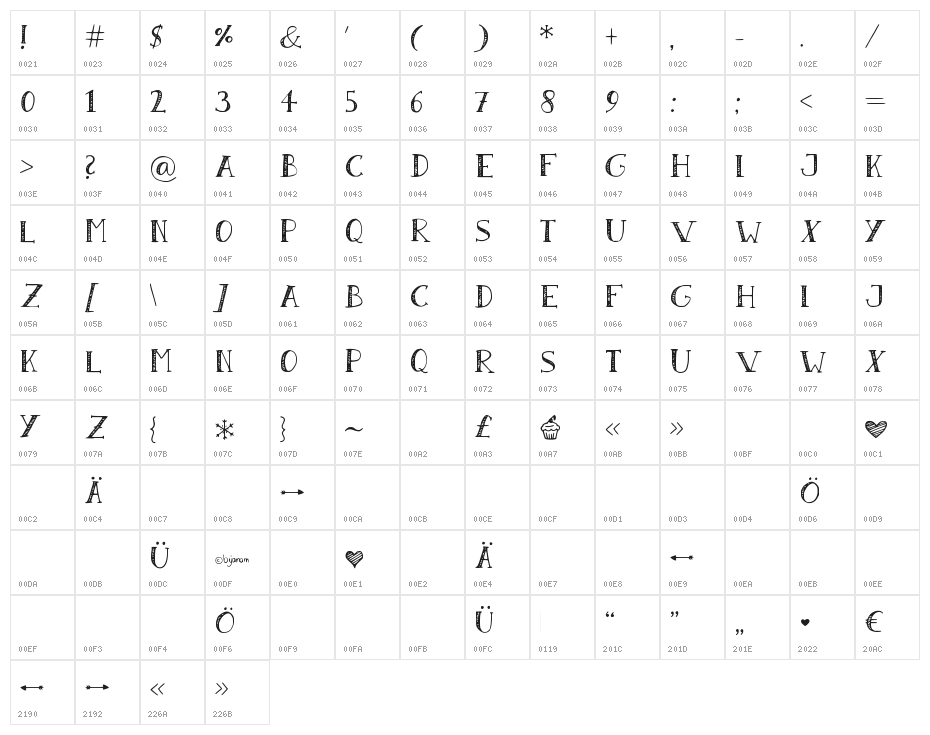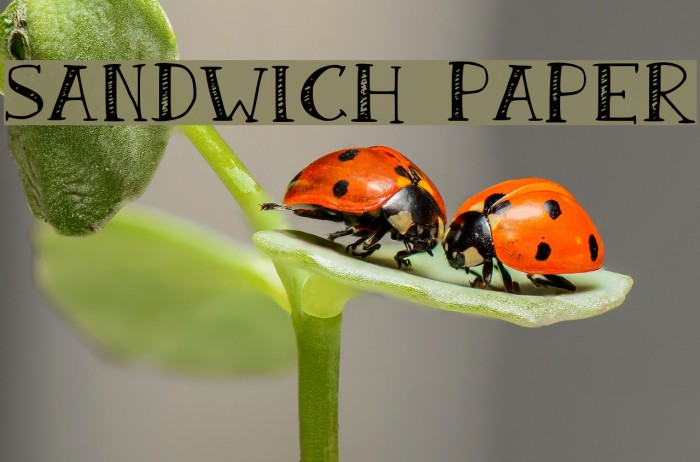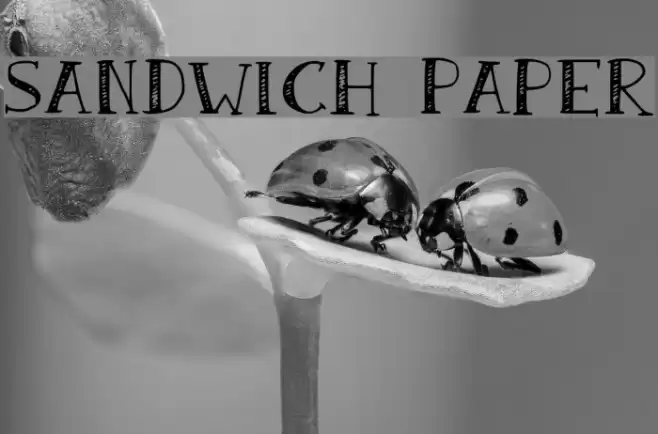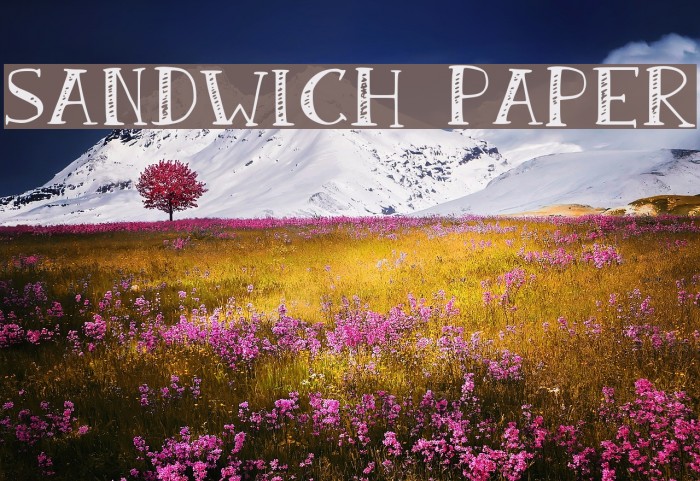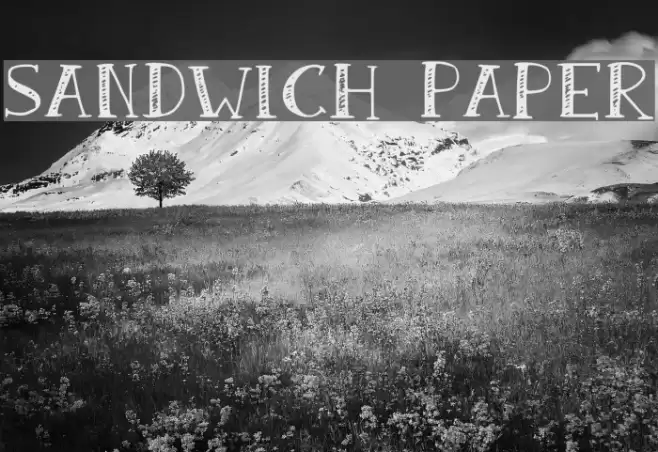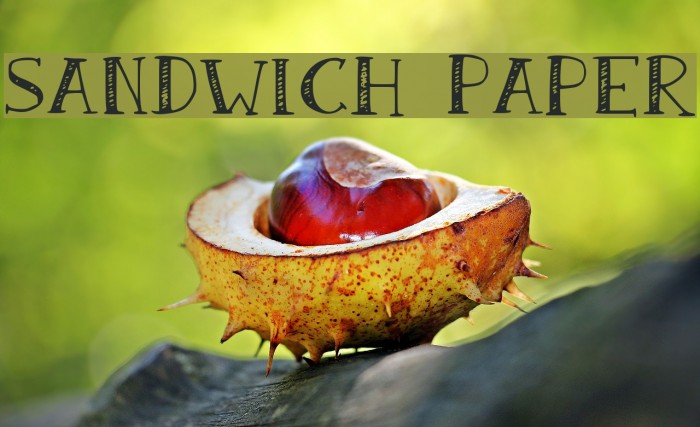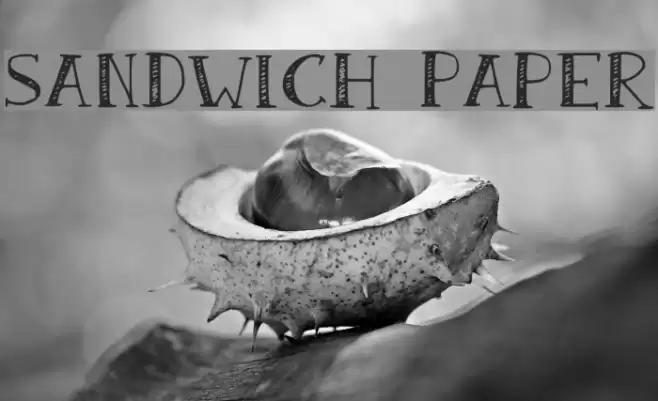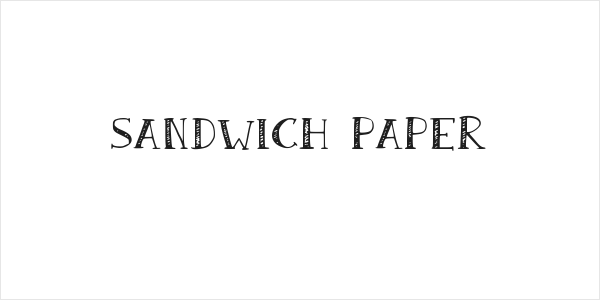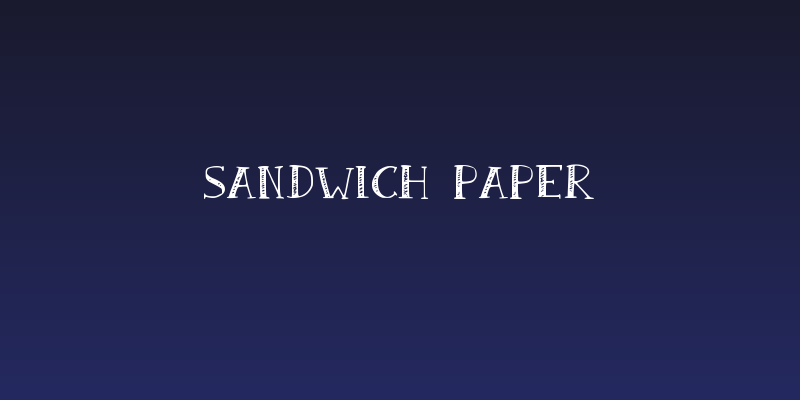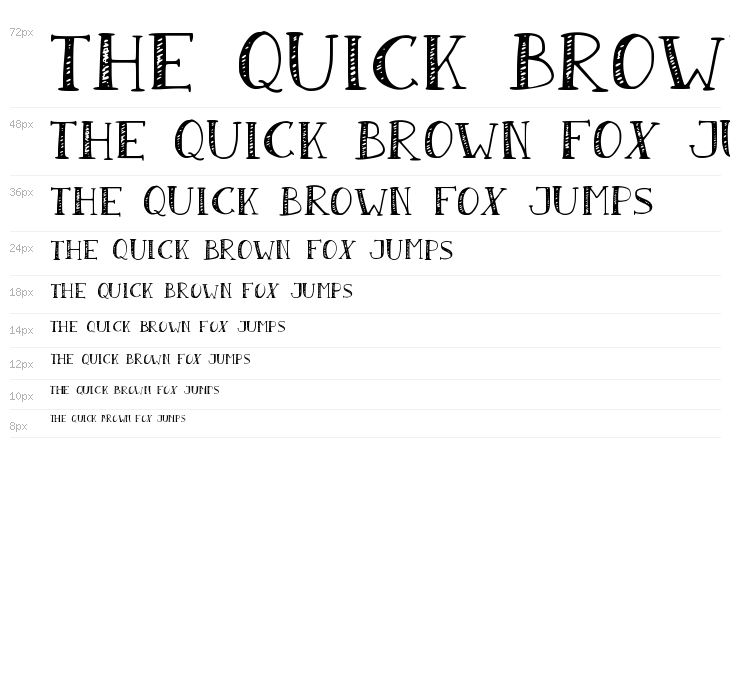
Sandwich Paper Font
This font features a playful and whimsical style with a hand-drawn appearance. The letters are characterized by uneven strokes and a slightly irregular baseline, giving it a casual and artistic feel. Each character has unique detailing, such as small embellishments and varied line thickness, which adds to its charm. The font maintains a consistent height across uppercase and lowercase letters, ensuring readability while still offering a creative flair. Its distinct style makes it suitable for projects that require a touch of personality and creativity.
| Overall Style | Whimsical, Artistic |
| Use Case | Headlines, Posters, Creative projects |
| Proposed Projects | Ideal for children's books, creative posters, greeting cards, and playful branding projects. |